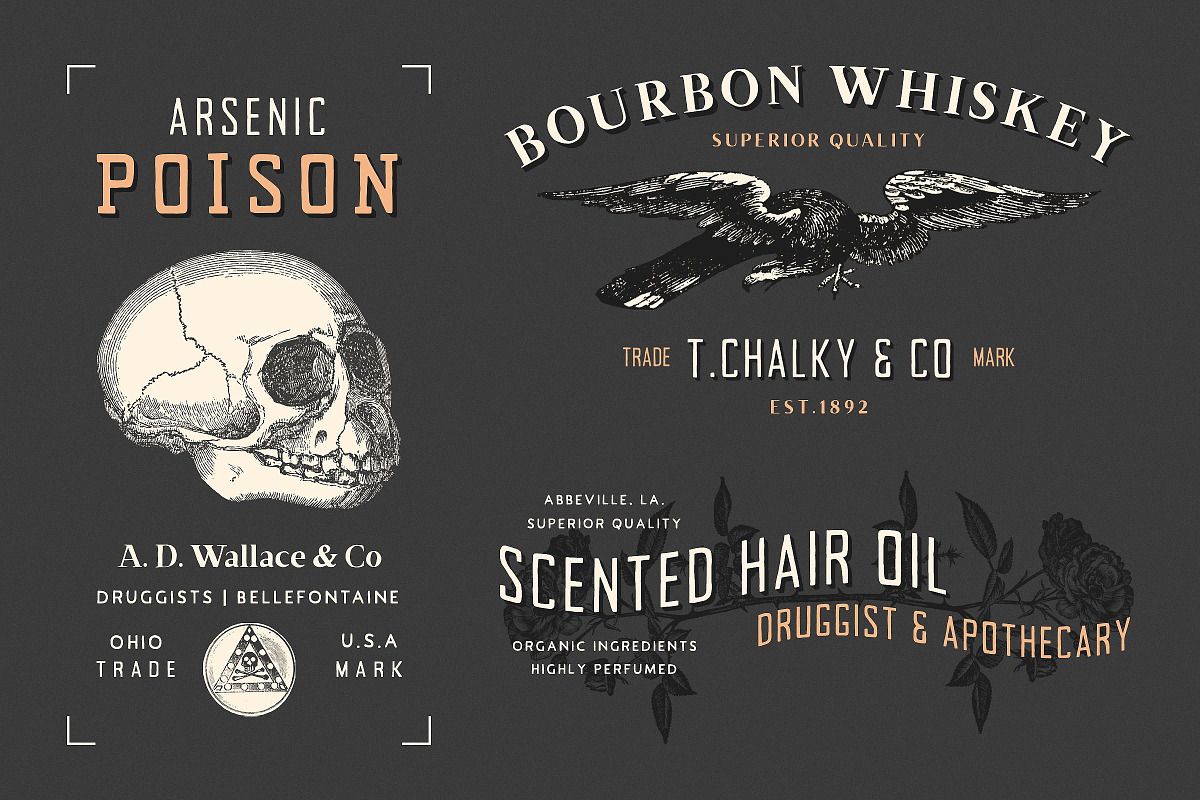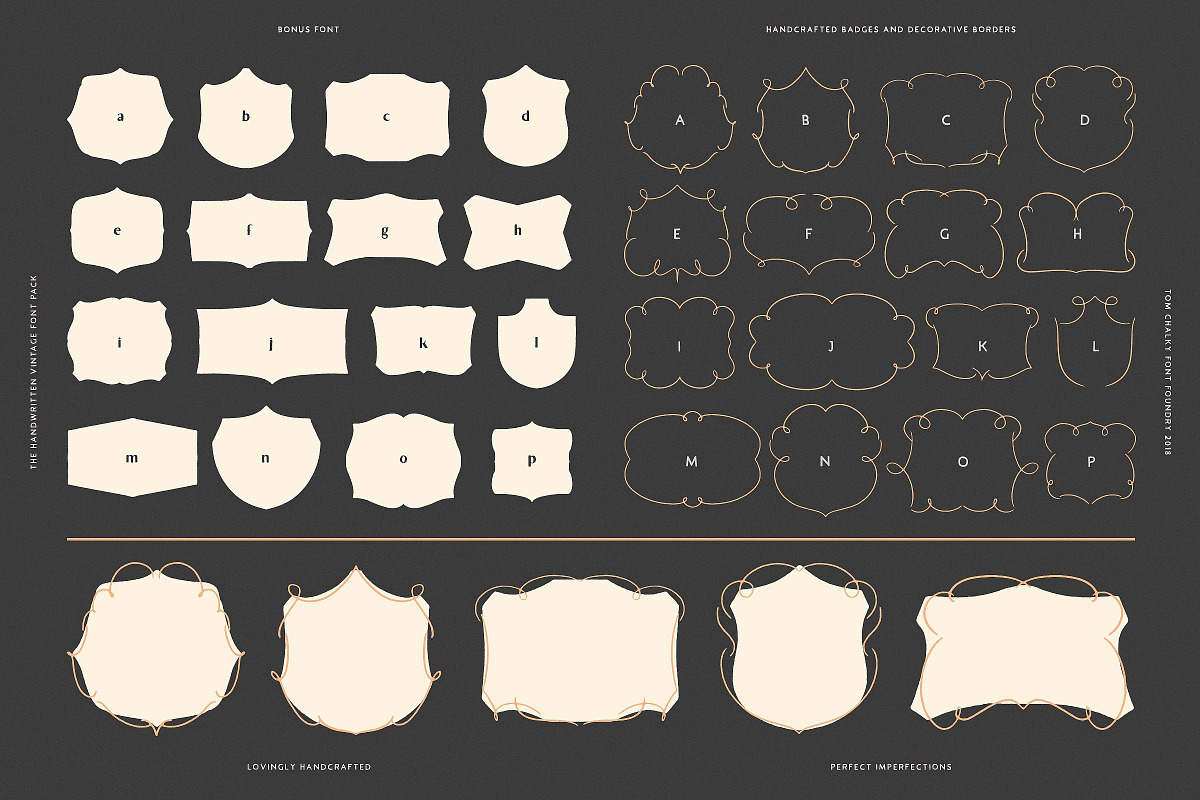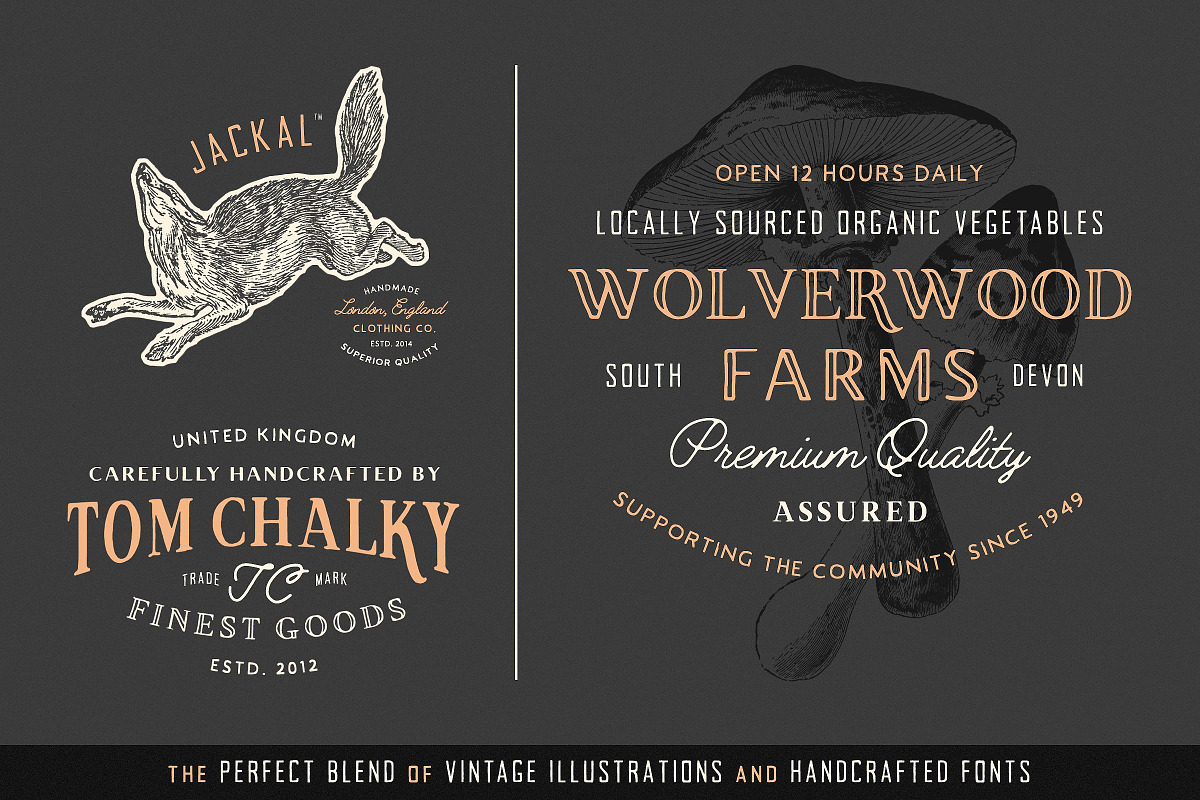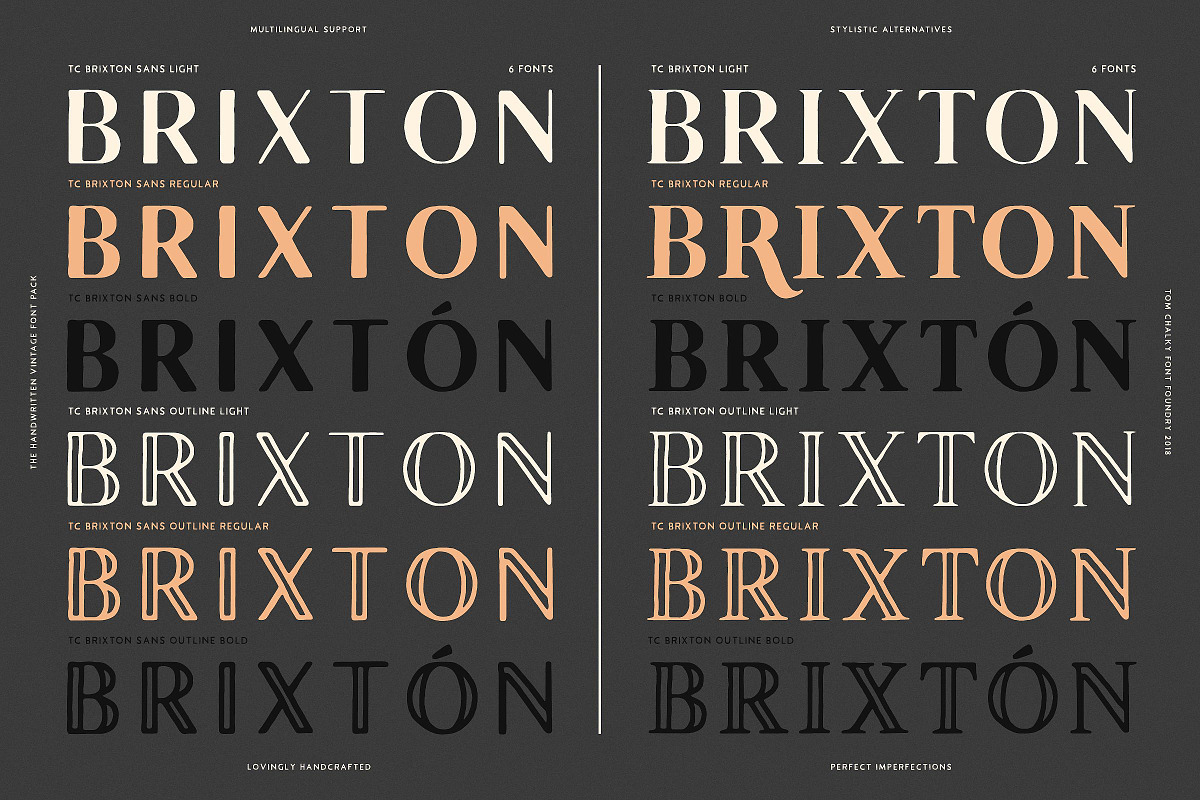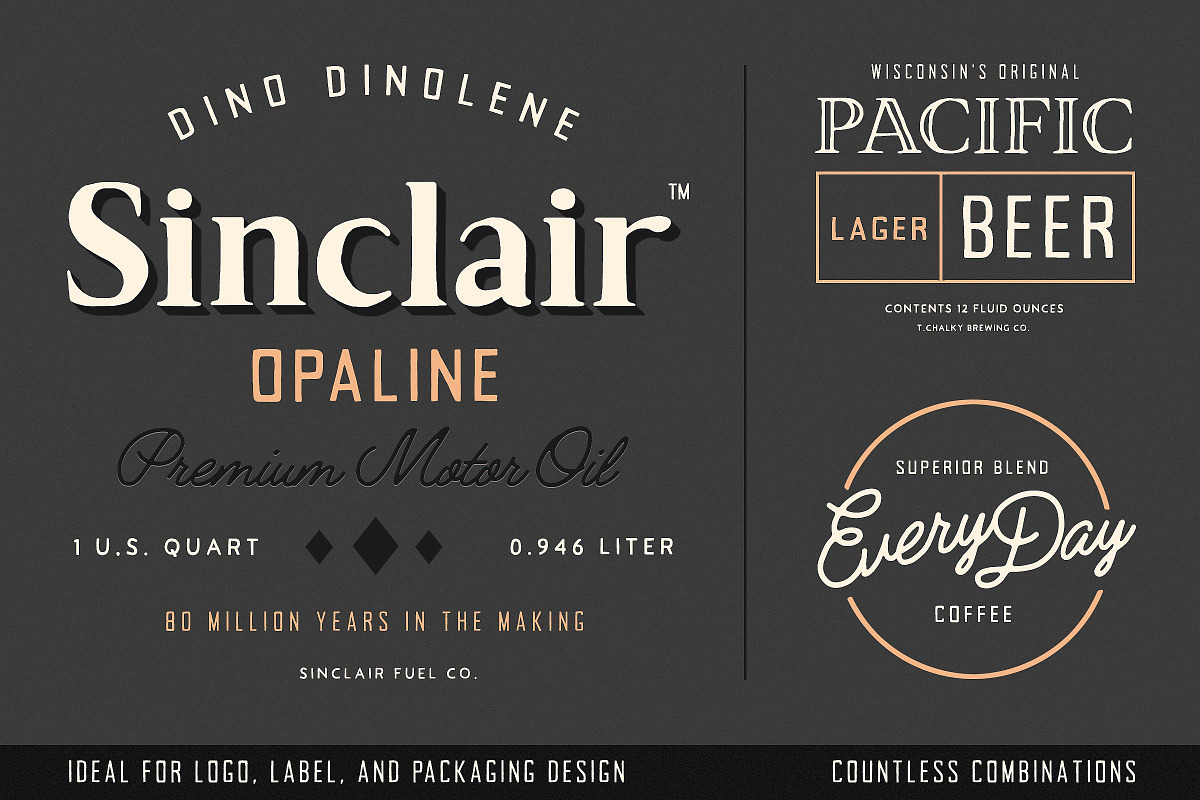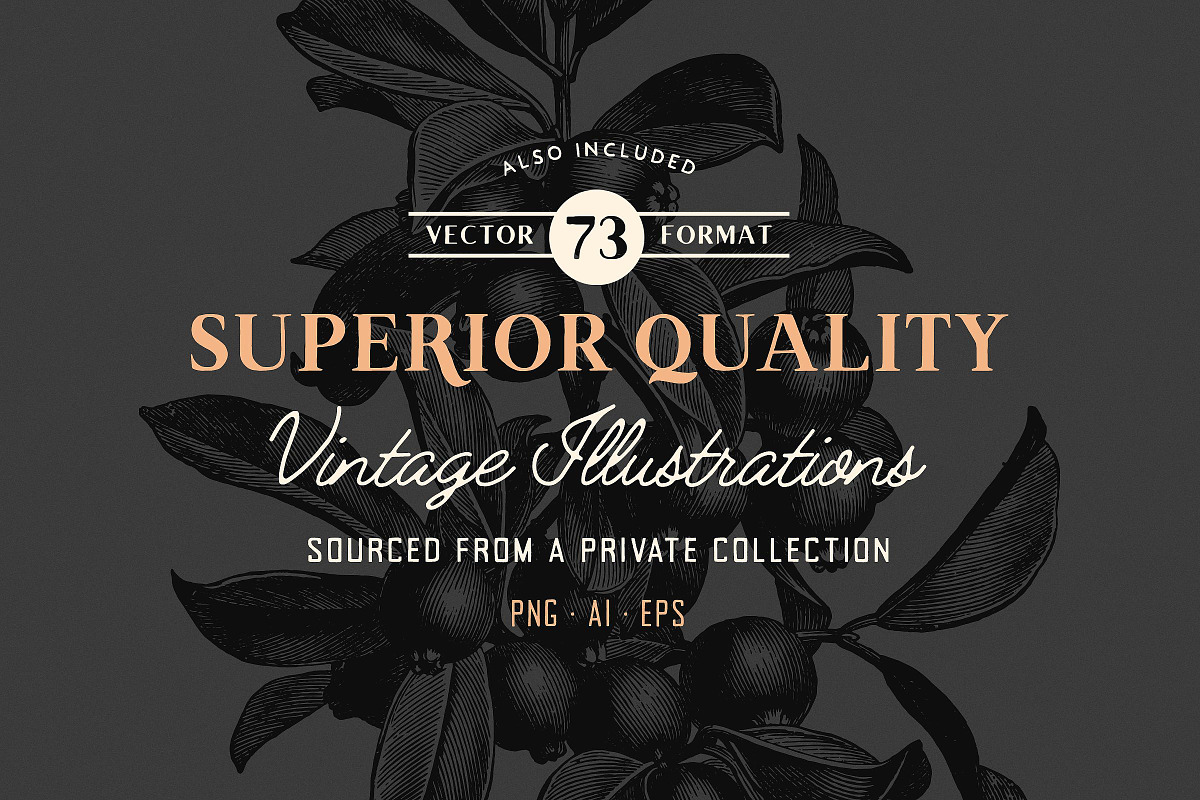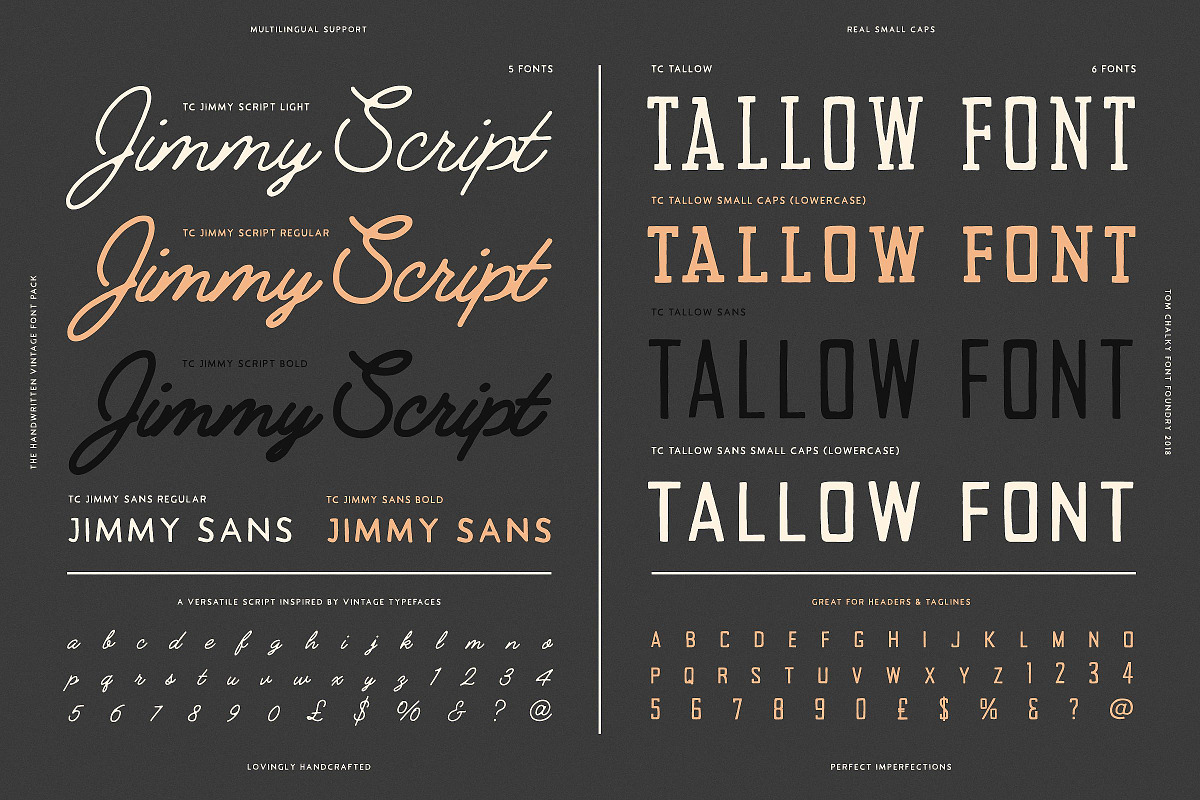
19 Vintage Fonts Bundle & Extras
Introducing the Handcrafted Vintage Fonts Pack with 73 Illustrations and 32 Badges & Borders
The handcrafted vintage fonts pack consists of a carefully selected array of effortlessly cohesive display fonts and a unique collection of engraved illustrations sourced and professionally restored from a private library of rare century-old books.
19 Handwritten Vintage Inspired Fonts: The fonts that are included within the pack were handpicked from my existing portfolio for their ability to beautifully complement one another, saving you time searching for font combinations and providing you with a solid, well rounded kit to work with.
73 Century-old Illustrations: The illustrations were sourced from a variety of rare books worth over $300 and were carefully converted for modern use (PNG and Vector formats included). Each and every image fits with the vintage theme of the pack and are unique to this collection.
32 Badges & Borders: As a bonus, you will find a font named 'TC Badges' that includes a flexible collection of hand drawn badges and borders, perfectly suited for your vintage themed projects.
Brixton Sans Light, Regular, and Bold ( )
Brixton Sans Outline Light, Regular, and Bold ( )
Brixton Light, Regular, and Bold ( )
Brixton Outline Light, Regular, and Bold ( )
Jimmy Script Light, Regular, and Bold ( )
Jimmy Sans Regular and Bold ( )
TC Badges (32 Badges and Borders in an easy to use Font)